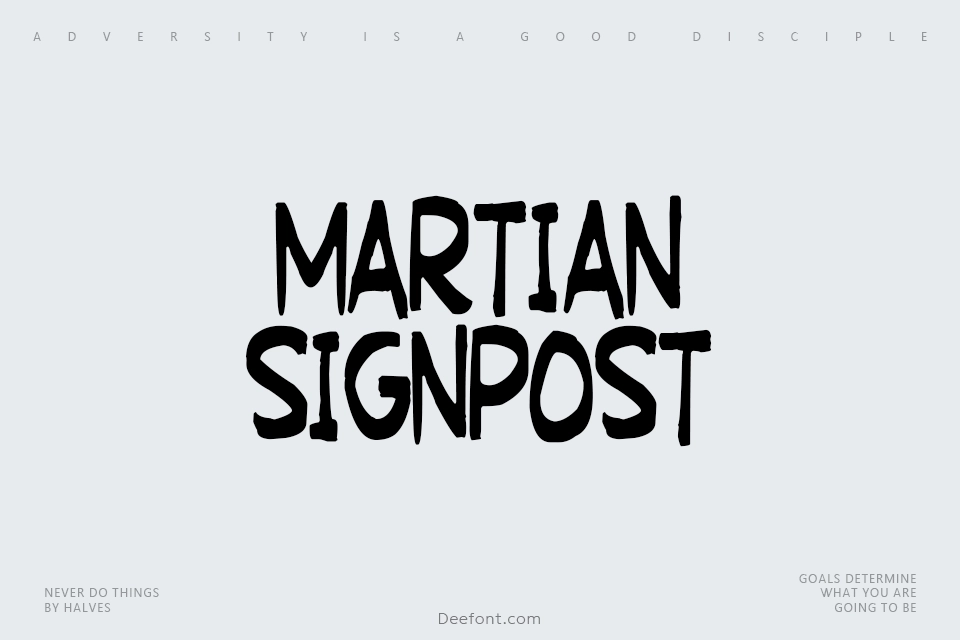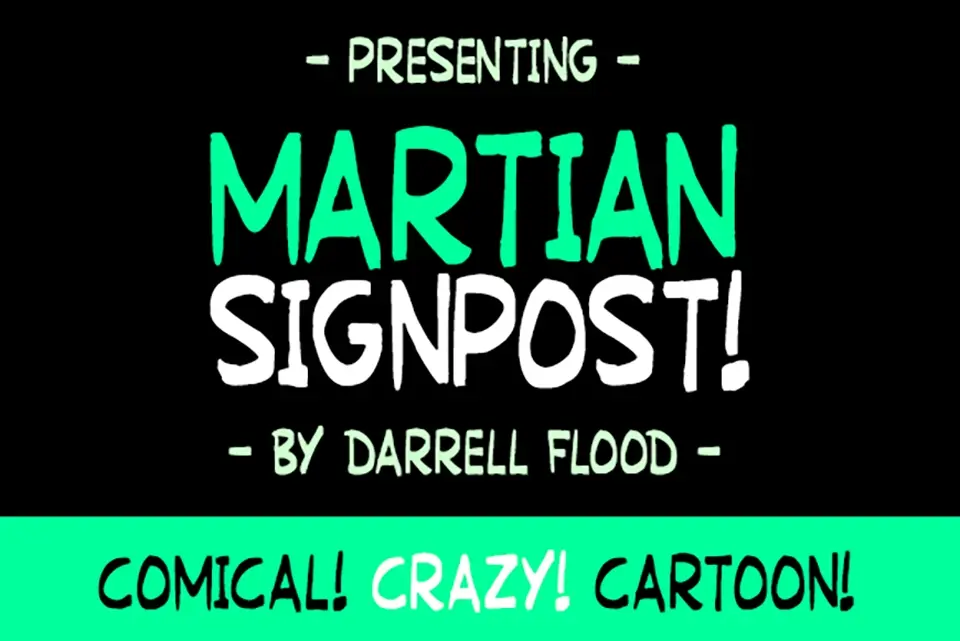
Martian Signpost Font
Martian Signpost is a distinctive handwritten script font created by Darrell Flood, featuring a unique paint-style aesthetic with 81 glyphs. The typeface combines organic brushwork with modern design sensibilities, making it ideal for creative projects, branding, and display typography. Originally released in 2018, this donationware font captures an artistic, contemporary feel suitable for posters, packaging, and digital design work.
Designed by:Darrell Flood